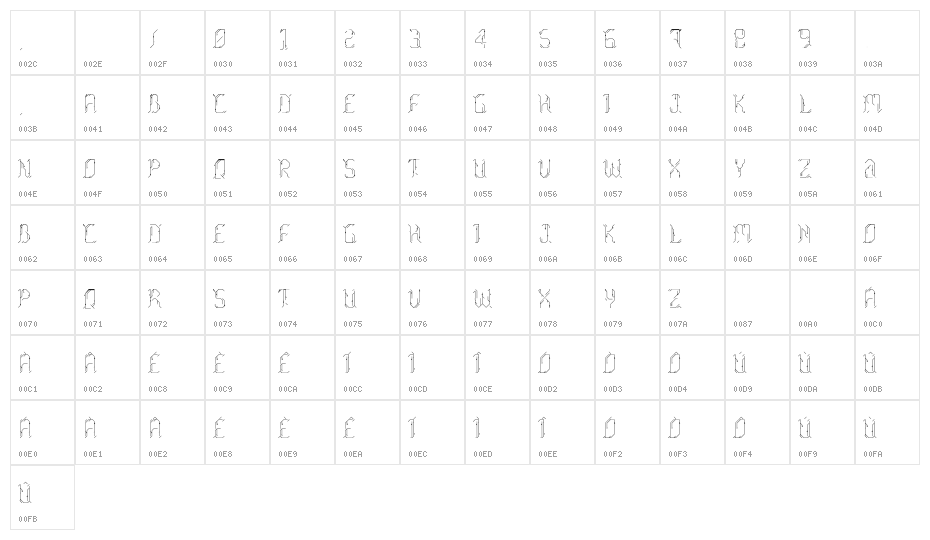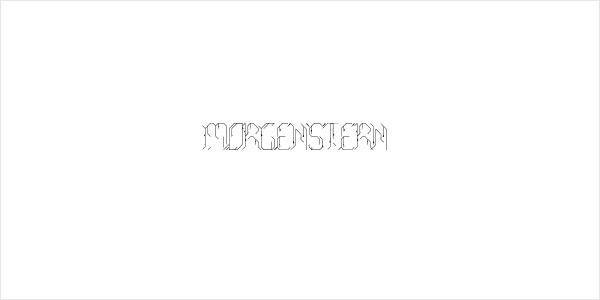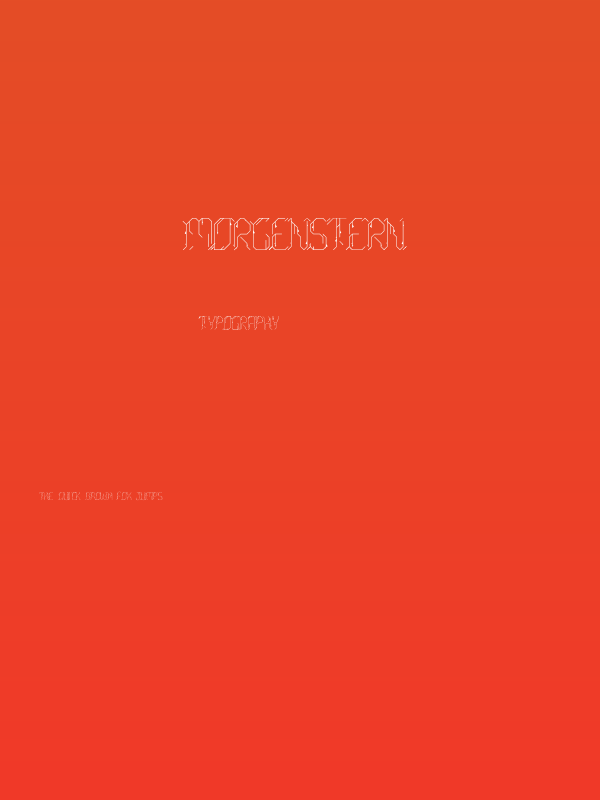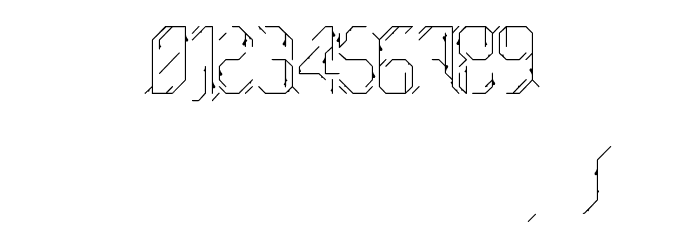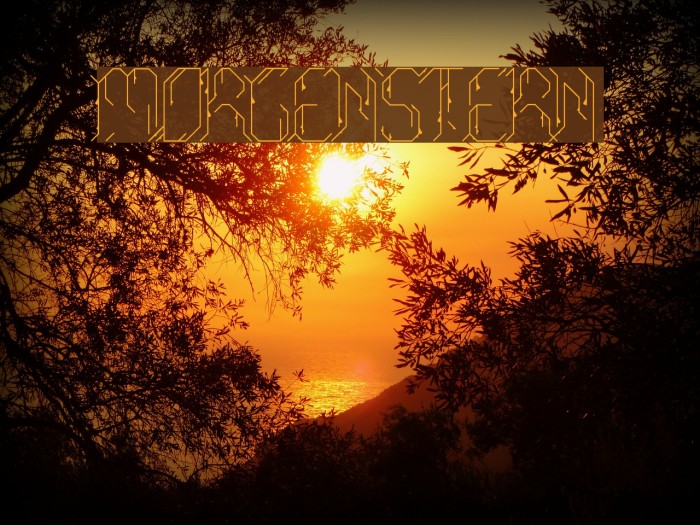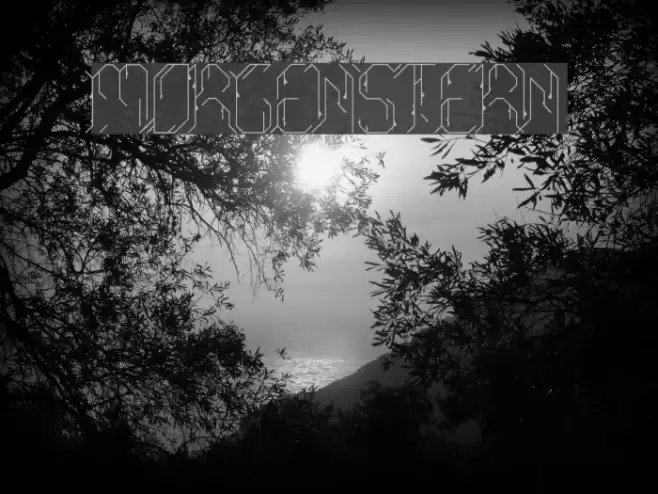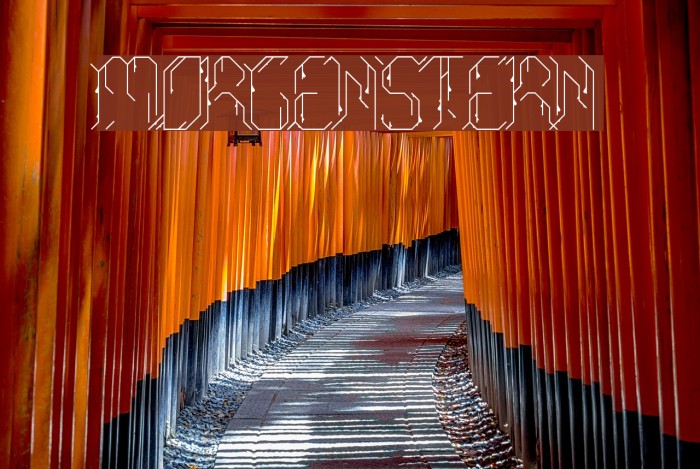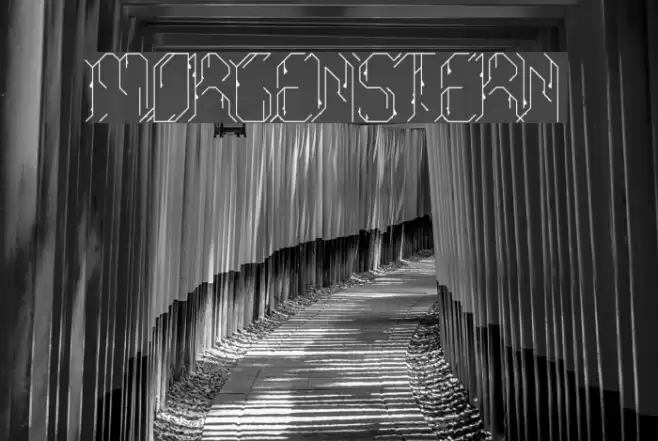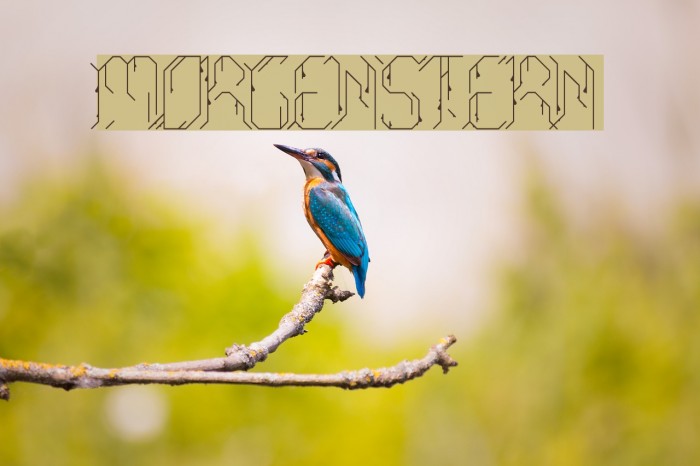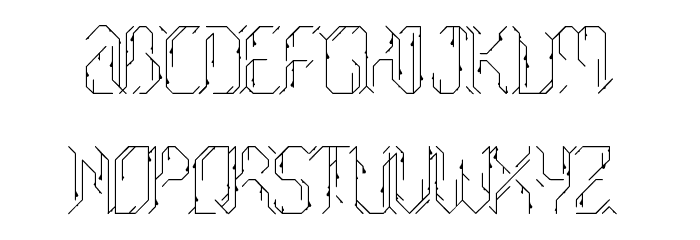
Morgenstern Font
Morgenstern Description
This font features a highly decorative and geometric style, characterized by angular lines and sharp edges. Each character is constructed with a series of intersecting lines, creating a complex and intricate appearance. The design is reminiscent of futuristic or digital aesthetics, with a unique and artistic flair. The uppercase and lowercase letters maintain a consistent style, while the numerals and special characters integrate seamlessly with the overall design. This font's distinct look makes it stand out, offering a bold statement in any design project.
| Overall Style | Futuristic, Decorative |
| Use Case | Logos, Headlines, Posters |
| Proposed Projects | Ideal for sci-fi themed posters, digital art, video game graphics, and modern branding projects. |